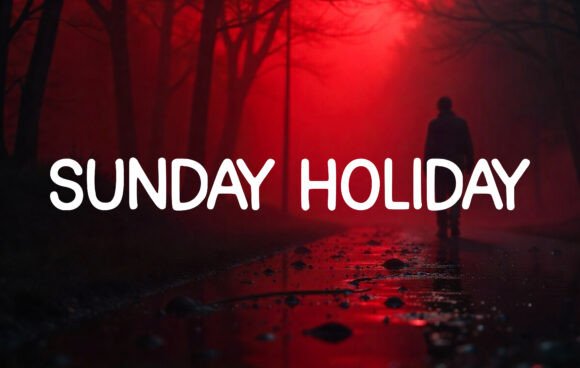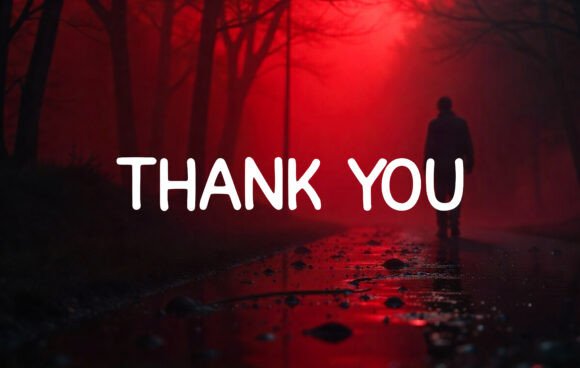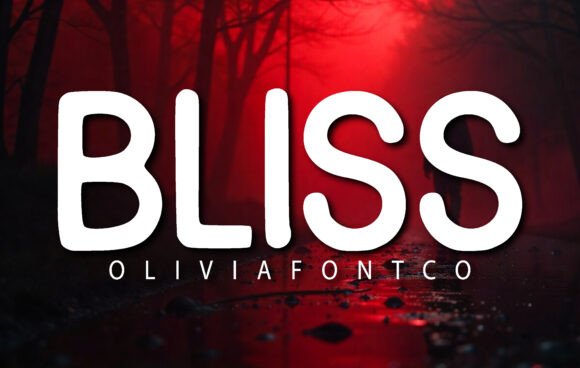
The Bliss Font: A Friendly and Versatile Sans Serif for Creative Projects
I’ll never forget the time I was working on a branding project for a new eco-friendly product line. My client wanted a font that was approachable, yet modern and bold. I spent hours scouring the internet for the perfect typeface, but nothing seemed quite right. That was until I stumbled upon the Bliss font. With its thick, rounded letterforms and smooth terminals, it was love at first sight! ✨
An Honest Review of Bliss Font
• ✨ **Friendly and approachable**: The Bliss font has a warm and inviting personality that’s perfect for lifestyle branding and product packaging.
• ✅ **High legibility**: The font’s generous proportions and consistent stroke weights make it easy to read, even at small sizes.
• 💡 **Versatile**: Bliss is a powerhouse font that can be used for everything from mobile app interfaces to bold advertising headers.
• 🎨 **Customizable**: The font features a range of OpenType features, glyphs, and stylistic alternates that allow for creative experimentation.
While the Bliss font is incredibly versatile, there are a few things to keep in mind. 🤔
• ⚠️ **Limited contrast**: The font’s smooth terminals and consistent stroke weights can make it difficult to create visual hierarchy through contrast alone.
• ⚠️ **Not ideal for body text**: While Bliss is highly legible, its friendly and approachable personality may not be the best fit for long-form body text.
The Story Behind Bliss Font
The Bliss font was designed with the goal of creating a friendly and approachable typeface that would be perfect for modern lifestyle branding. The designer, inspired by the clean lines and simple shapes of everyday objects, set out to create a font that was both highly legible and visually appealing.
Font Name Bliss Font
Author OliviaFontCo
Q: What is the Bliss font best used for?
A: The Bliss font is best used for lifestyle branding, product packaging, mobile app interfaces, and bold advertising headers.
Q: Is the Bliss font easy to read?
A: Yes, the Bliss font is highly legible and easy to read, even at small sizes.